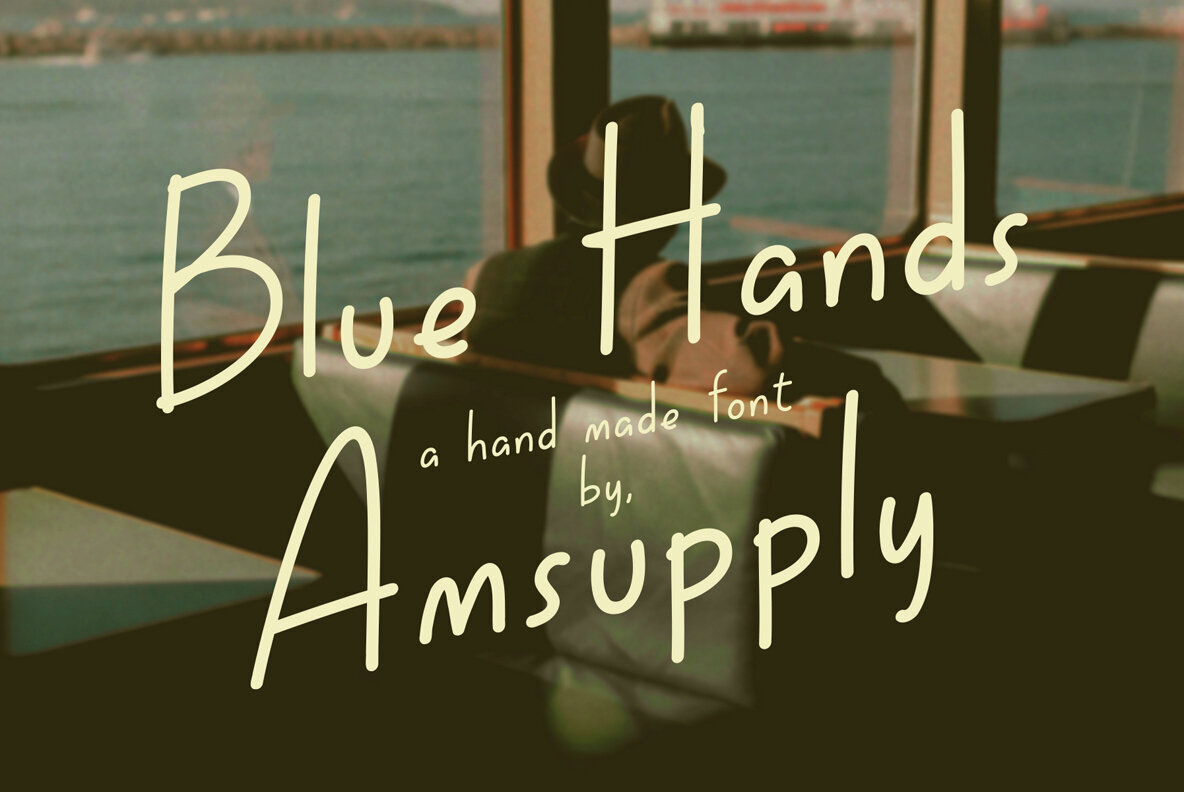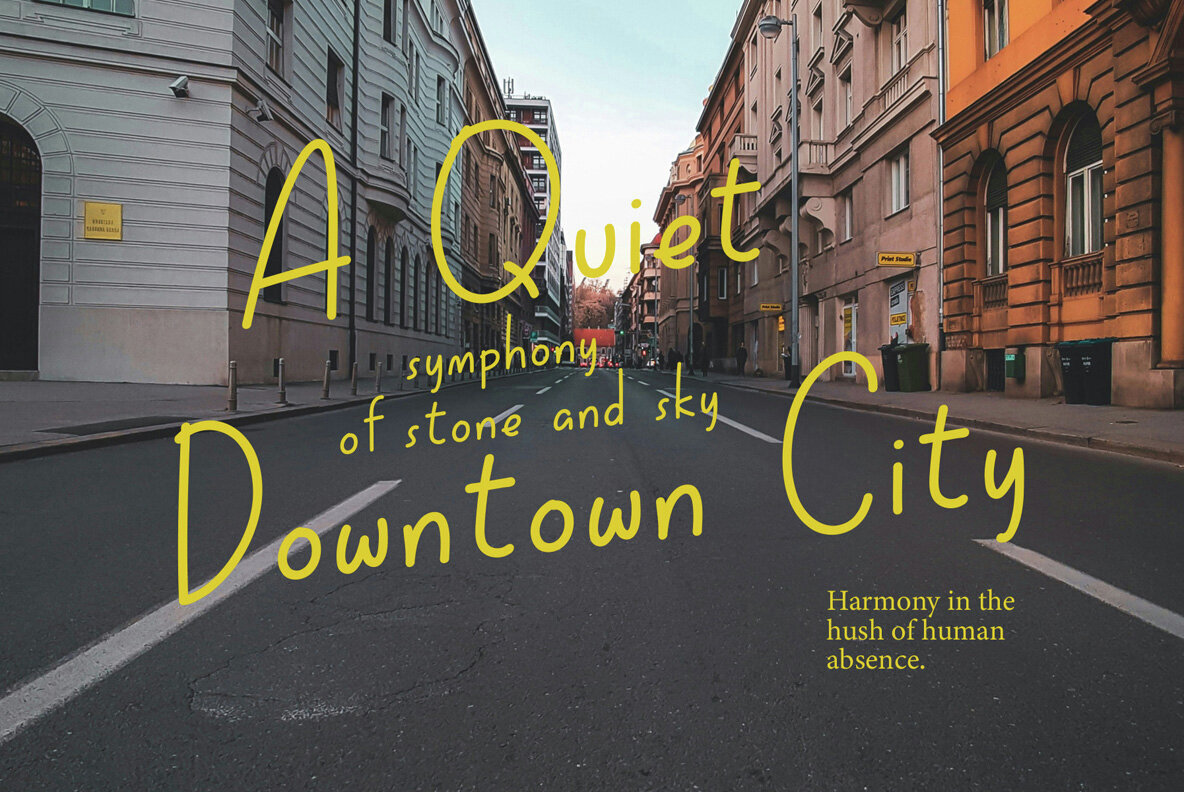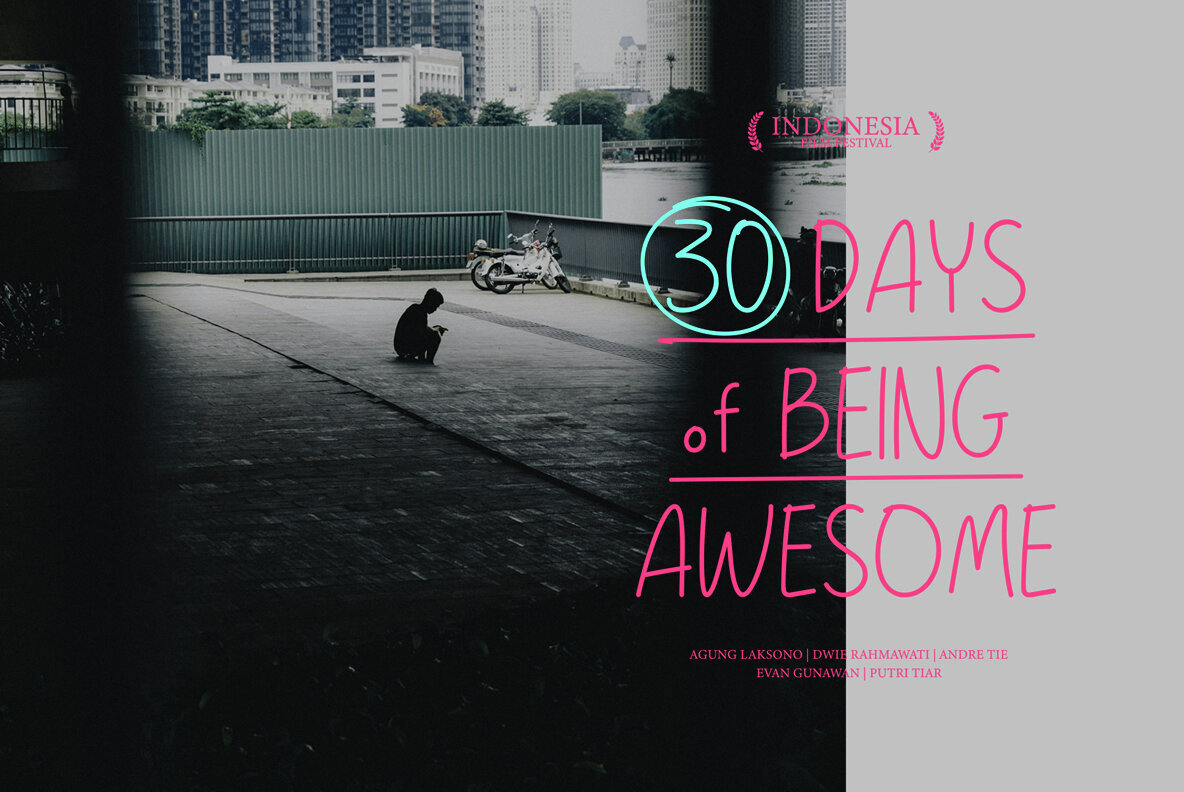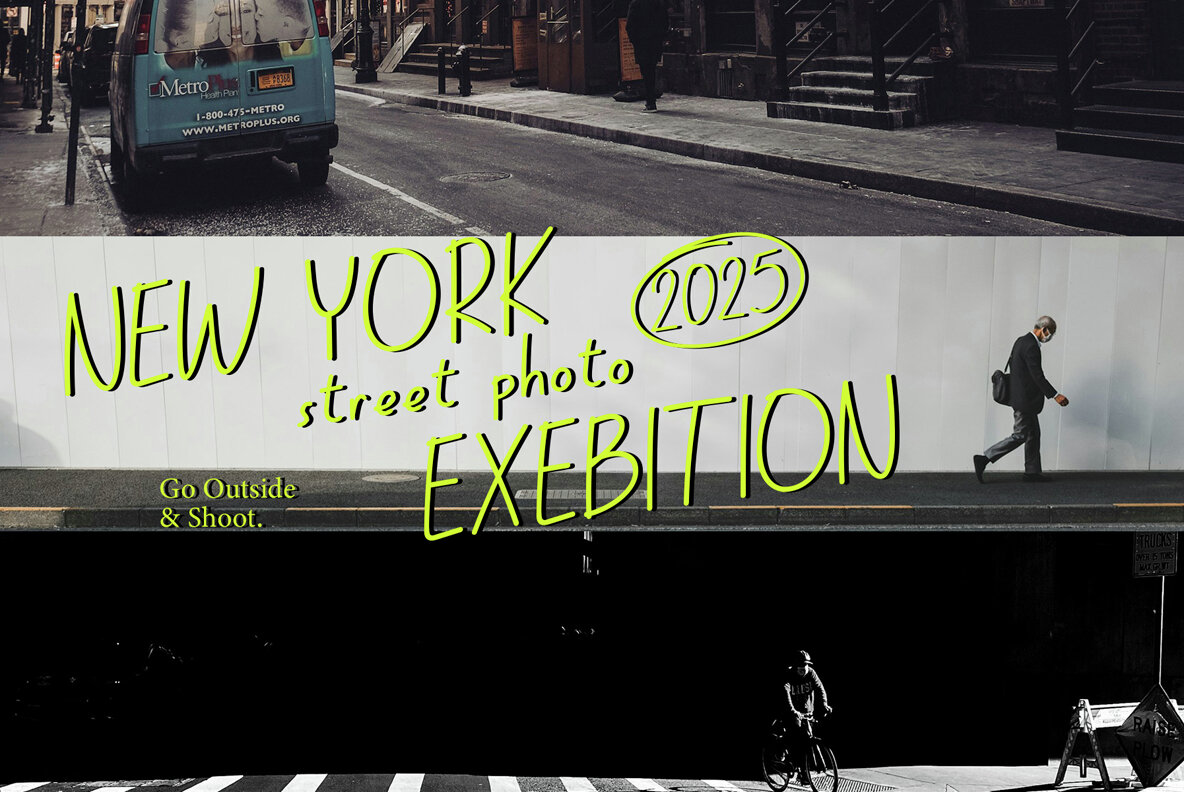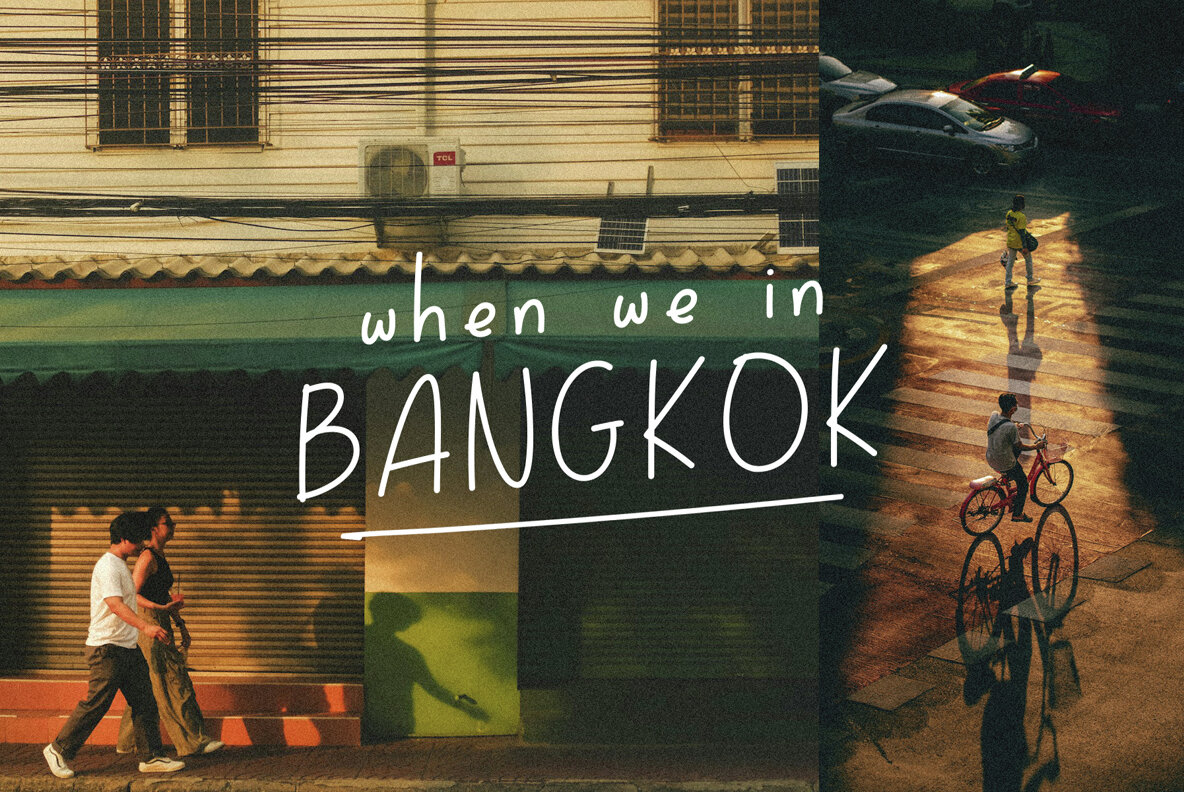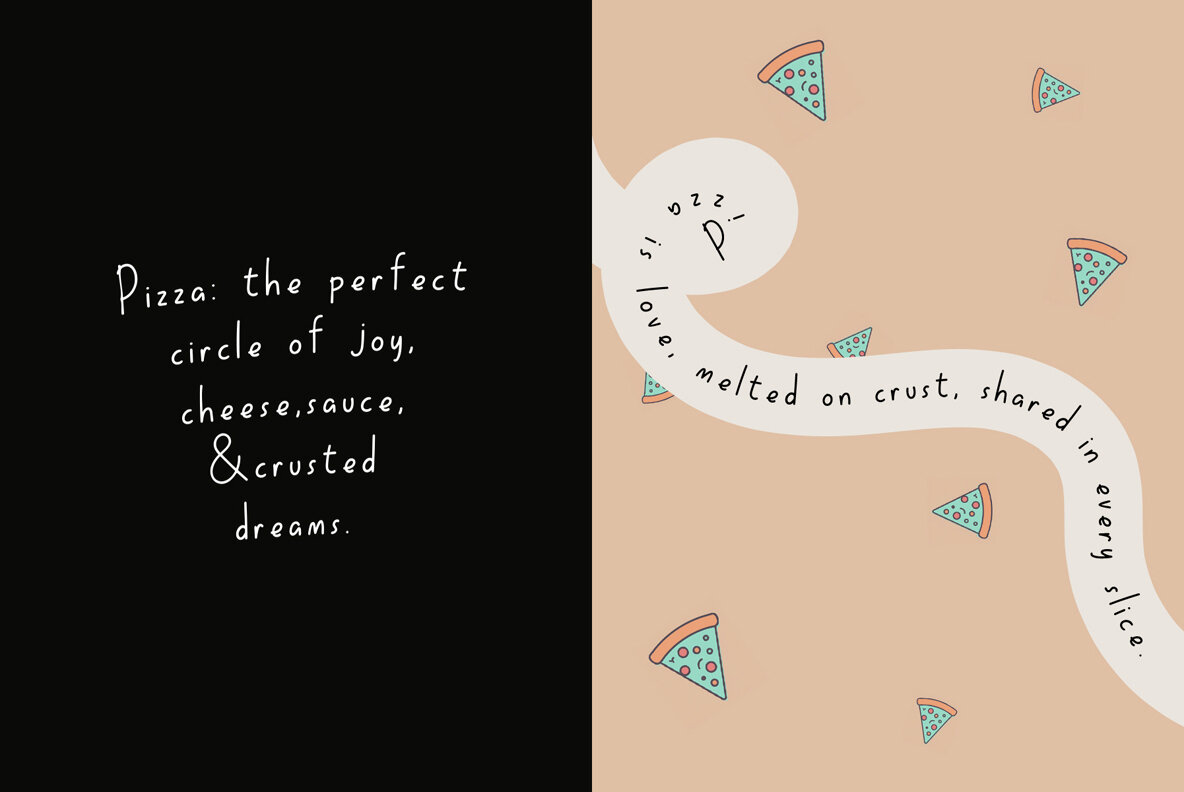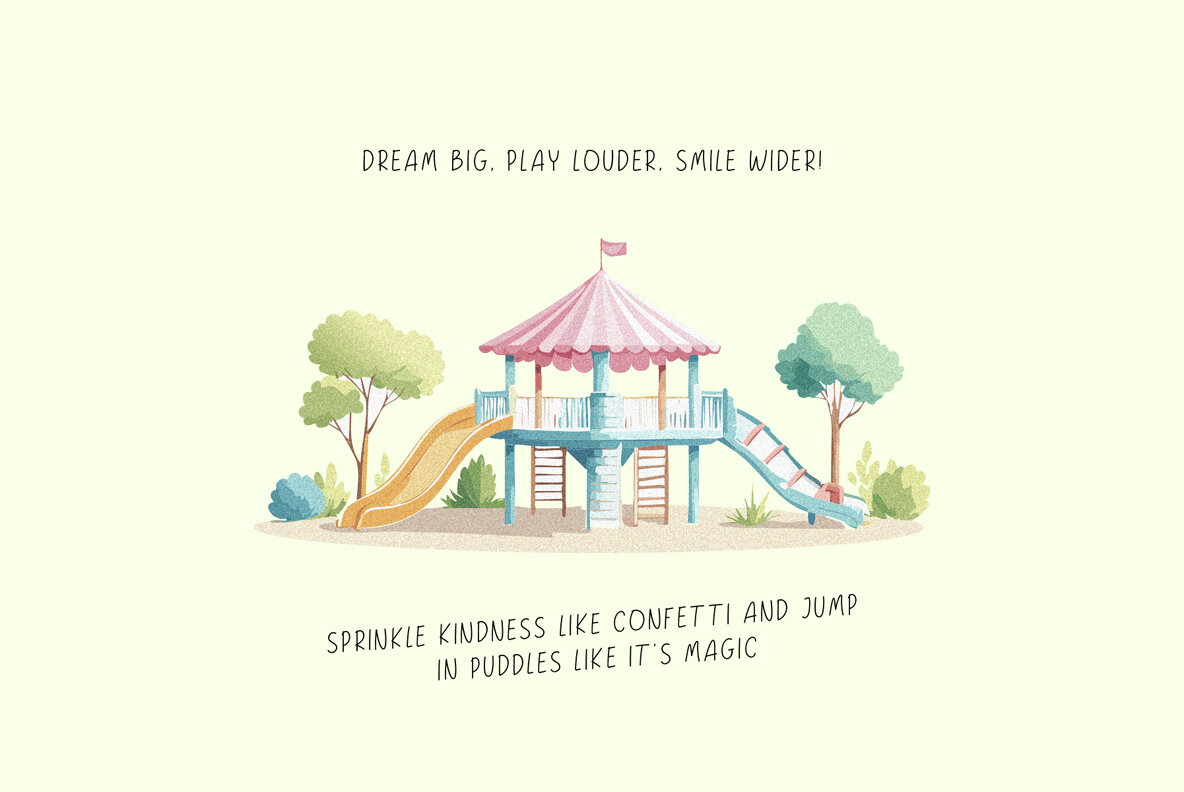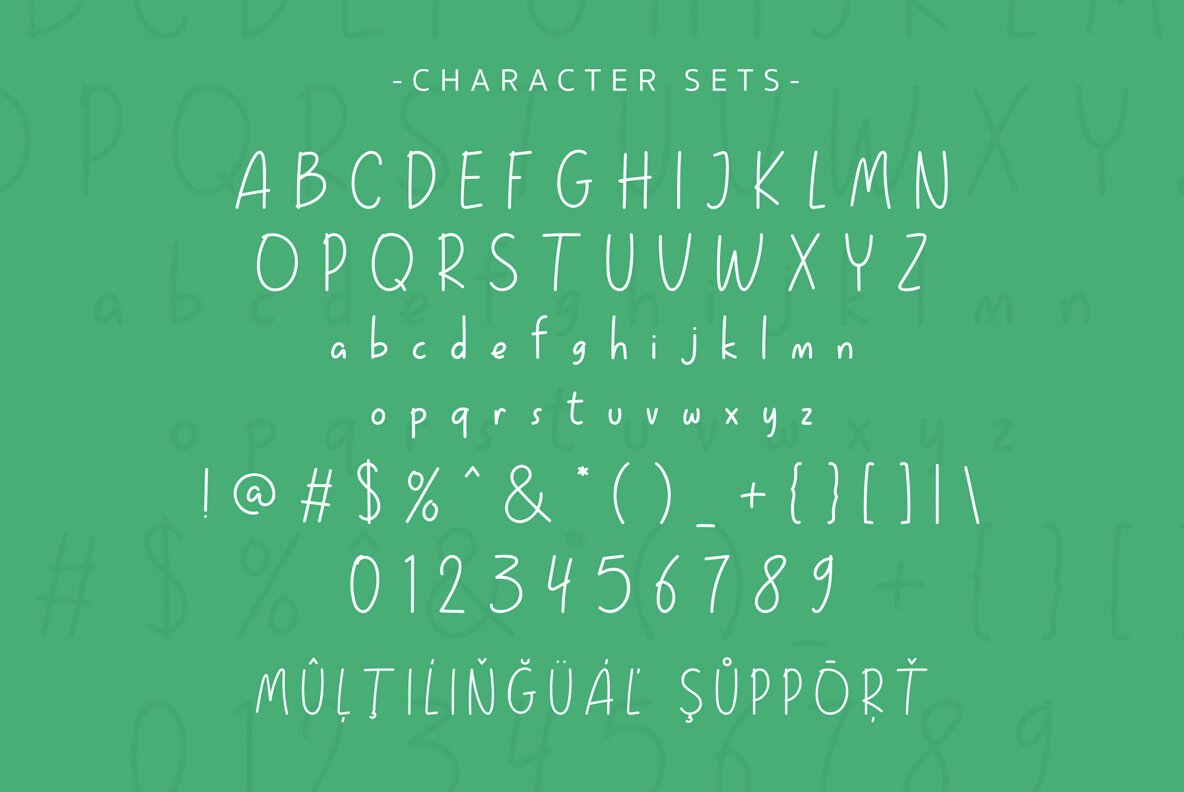
Blue Hands Font
Blue Hands Regular
Blue Hands is a handcrafted handwritten font that radiates warmth, personality, and a touch of nostalgia. Its tall, slightly irregular letterforms create an organic and natural feel, resembling authentic handwriting. This font is perfect for travel-themed designs, visual journals, narrative illustrations, or any creative content that seeks a casual and emotional tone. With its expressive yet legible style, Blue Hands is ideal for poster titles, creative quotes, social media captions, and branding projects that aim to feel human, artistic, and approachable.